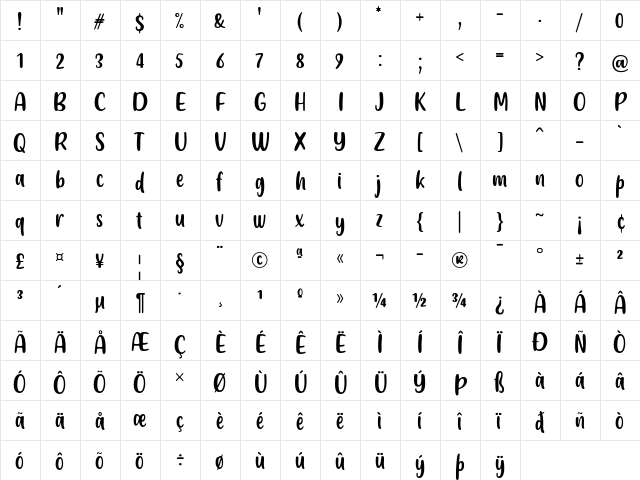
Friendly Schoolmates Regular
| Foundry | 7NTypes |
| Designer | Situjuh Nazara |
Design Context for Friendly Schoolmates Typeface
Friendly Schoolmates is a composed and adaptable typeface that performs quietly and consistently across a wide range of design contexts.